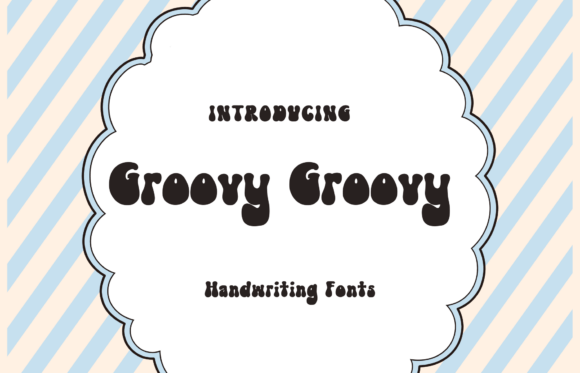
Unleashing the Groovy Vibes: A Font that Brings Joy to Your Designs
Do you remember the first time you saw a beautifully designed wedding invitation or a fun comic book that made you smile? For many of us, it’s the little details that make a design truly special, and that’s where the Groovy Groovy Font comes in.
This sweet and friendly handwritten display font is perfect for adding a touch of whimsy to your designs. Whether you’re a seasoned designer or just starting out, the Groovy Groovy Font is a valuable addition to your toolkit. Its versatility makes it ideal for a wide range of projects, from digital design and presentation to crafting and writing wedding invitations.
Groovy Groovy Font Key Features
- Unique Characteristics: This font features a distinctive, hand-drawn feel with a mix of geometric and organic shapes, adding a touch of personality to any design.
Groovy Groovy Font Review
Overall, I’m quite impressed with the Groovy Groovy Font. It’s a fun, playful font that’s perfect for adding some personality to your designs. Here’s what works well:
- ✨ Unique and quirky character shapes that really pop.
- ✨ Excellent legibility, even at smaller font sizes.
- ✨ Supports a wide range of languages, making it a great choice for international projects.
- ⚠️ Limited customization options, which might be a problem for designers who like to fine-tune their fonts.
- ⚠️ May not be suitable for formal or professional projects, due to its playful nature.
Overall, I’d give the Groovy Groovy Font 4 out of 5 stars. It’s a great choice for designers who want to add some fun and personality to their designs, but it may not be the best fit for every project. With a bit more customization options and a more versatile use case, this font could be truly groovy!
Tips for Getting the Most Out of the Groovy Groovy Font
Use the Groovy Groovy Font to add a touch of whimsy and fun to your designs.
Pair the font with bold, bright colors to create a visually striking effect.
Experiment with different font sizes and styles to add emphasis and hierarchy to your text.
The Groovy Groovy Font is perfect for:
Creating eye-catching social media graphics and posters.
Designing playful and engaging children’s book covers.
Adding a fun and quirky touch to your brand’s marketing materials.